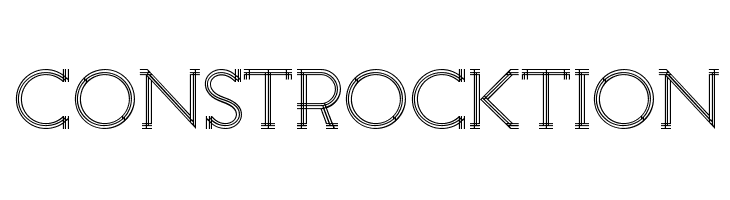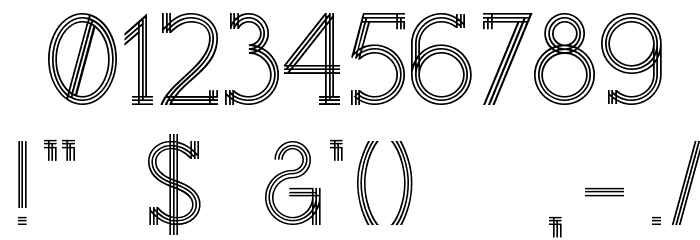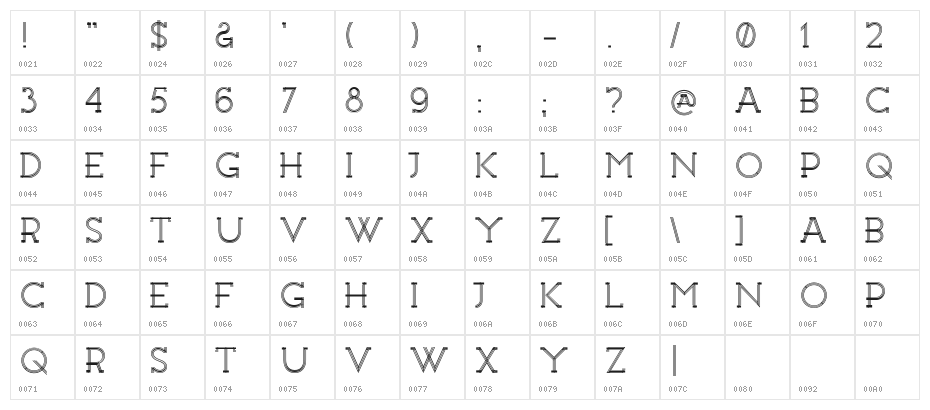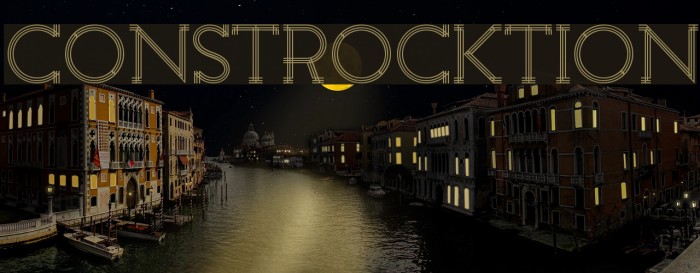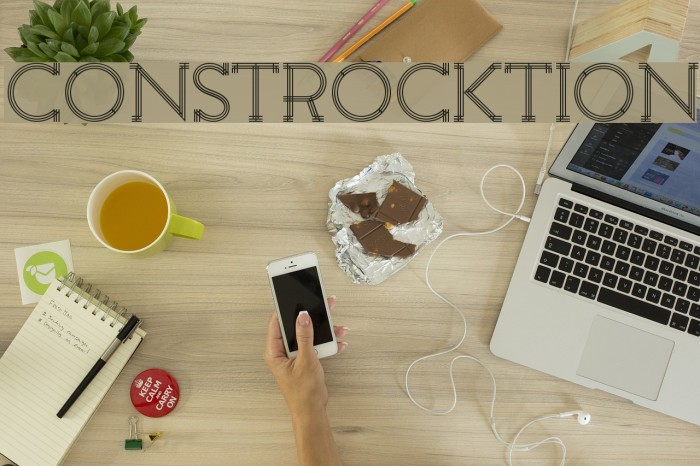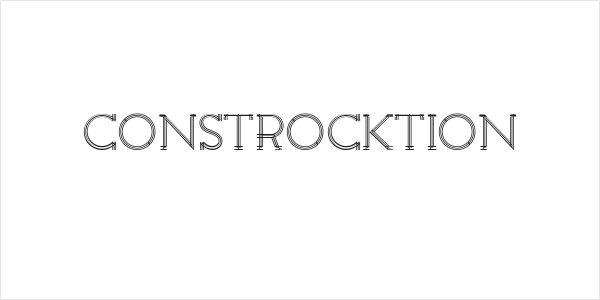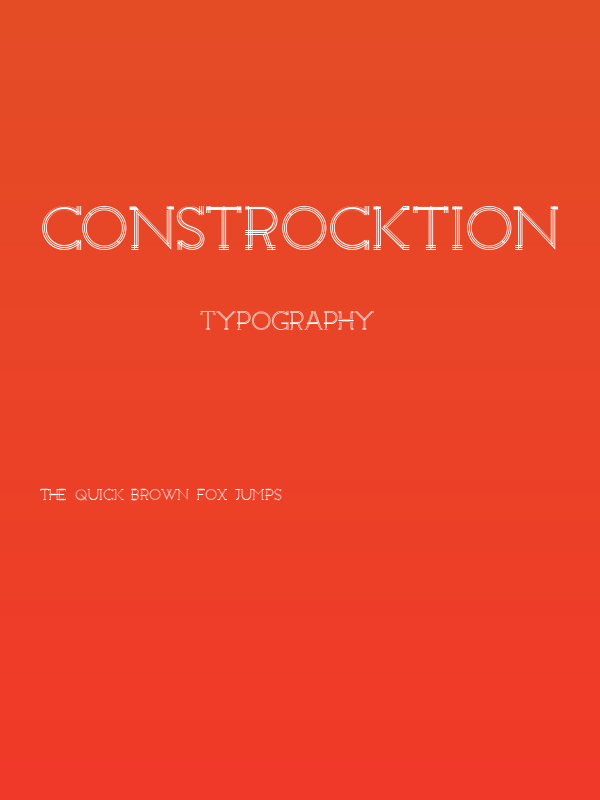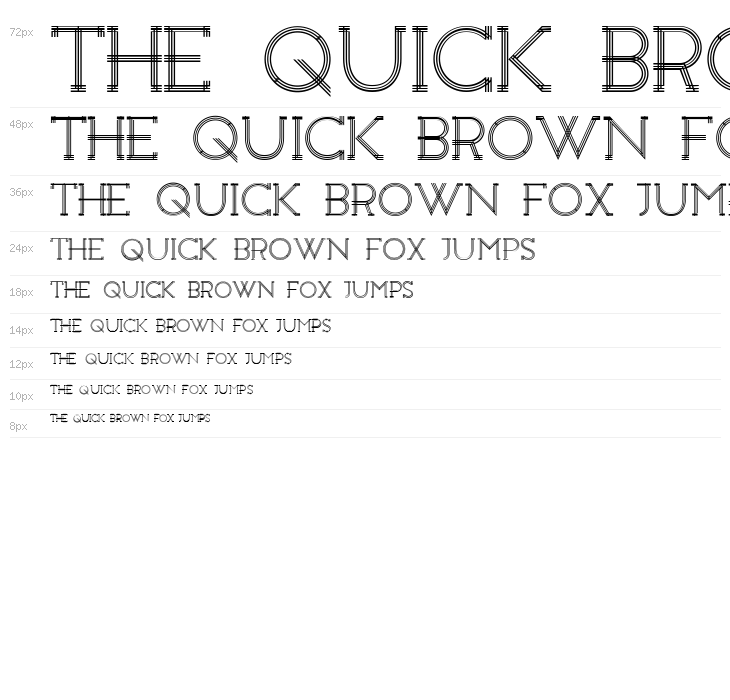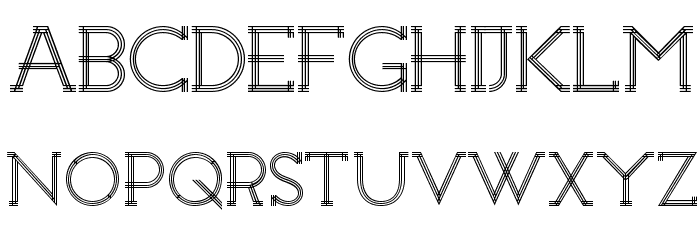
Constrocktion Font
Constrocktion Description
This font features a unique, industrial-inspired design with a multi-line structure that gives each character a sense of depth and complexity. The geometric shapes are accentuated by parallel lines that create a striking visual effect, making it ideal for projects that require a bold and modern aesthetic. The uppercase letters are particularly eye-catching, with their intricate detailing and strong presence. Numbers and special characters maintain the same design philosophy, ensuring consistency across all elements. This font is perfect for creating impactful headlines, logos, and posters where a distinctive and contemporary look is desired.
Proposed ProjectsIdeal for branding, posters, headlines, and modern design projects.